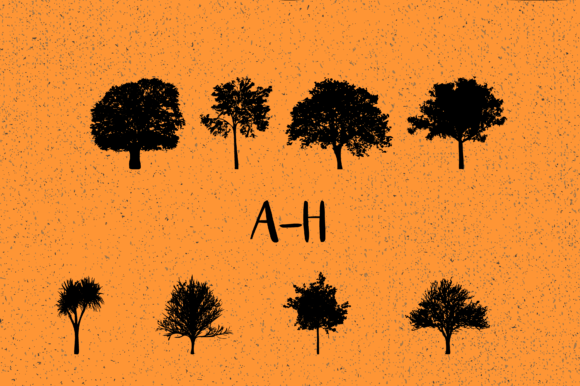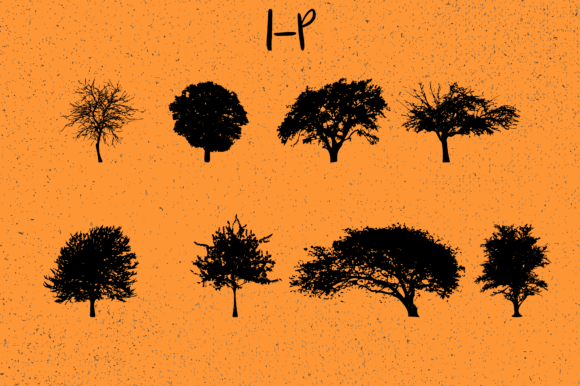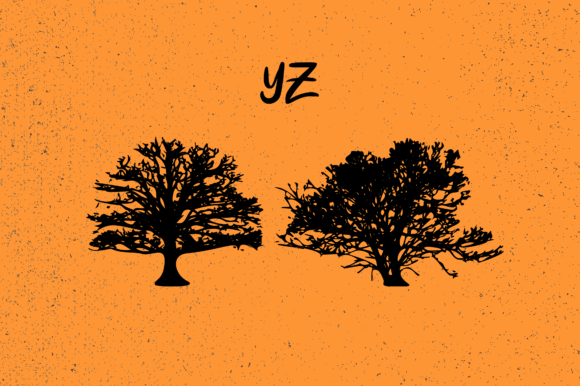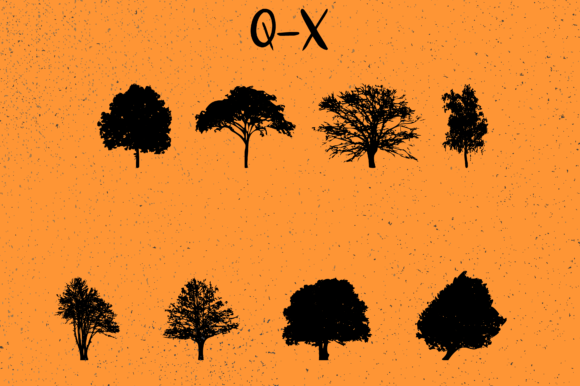
Trees 2.0 Font
About Trees 2.0 Font
Trees 2.0 is an amazing and distinct dingbats font that’s designed to help you generate a wide range of beautiful and lifelike tree drawings by typing capital and small letters as well as numbers. The font includes a set of unique and intricate tree drawings that can be used to create custom designs.
One of the best things about Trees 2.0 is its versatility. The font can be used for a wide range of projects, from designing stunning and atmospheric logos to adding a touch of nature to decorative patterns, bullet points to lists, or more. The font’s distinctive and lifelike tree drawings make it perfect for projects that need a touch of natural beauty, and the font’s customizable nature makes it an excellent choice for designers who want to add a custom touch to their designs.
Another great thing about Trees 2.0 is how easy it is to use. With a few keystrokes, users can create a wide range of beautiful tree drawings. The font includes clear, concise instructions to help users get started quickly, and the font’s easy-to-follow design makes it easy to generate custom tree drawing designs without having to spend a lot of time learning new skills.
In addition to its ease of use and versatility, Trees 2.0 is also just a stunning and beautiful font. The font’s unique and intricate tree drawings set it apart from other dingbats fonts and make it a perfect choice for designers who want to set their designs apart from the competition.
Overall, Trees 2.0 is an amazing and distinct dingbats font that’s perfect for a wide range of stunning and atmospheric projects. Whether you’re designing stunning and atmospheric logo designs, adding a touch of nature to decorative patterns, bullet points to lists, or more, Trees 2.0 is an easy-to-use and intuitive font that anyone can use to create custom tree drawing designs. The font’s distinctive and lifelike tree drawings make it a perfect choice for projects that need a touch of natural beauty, and it’s a great tool for those who want to create standout and memorable designs that set their projects apart from the competition.